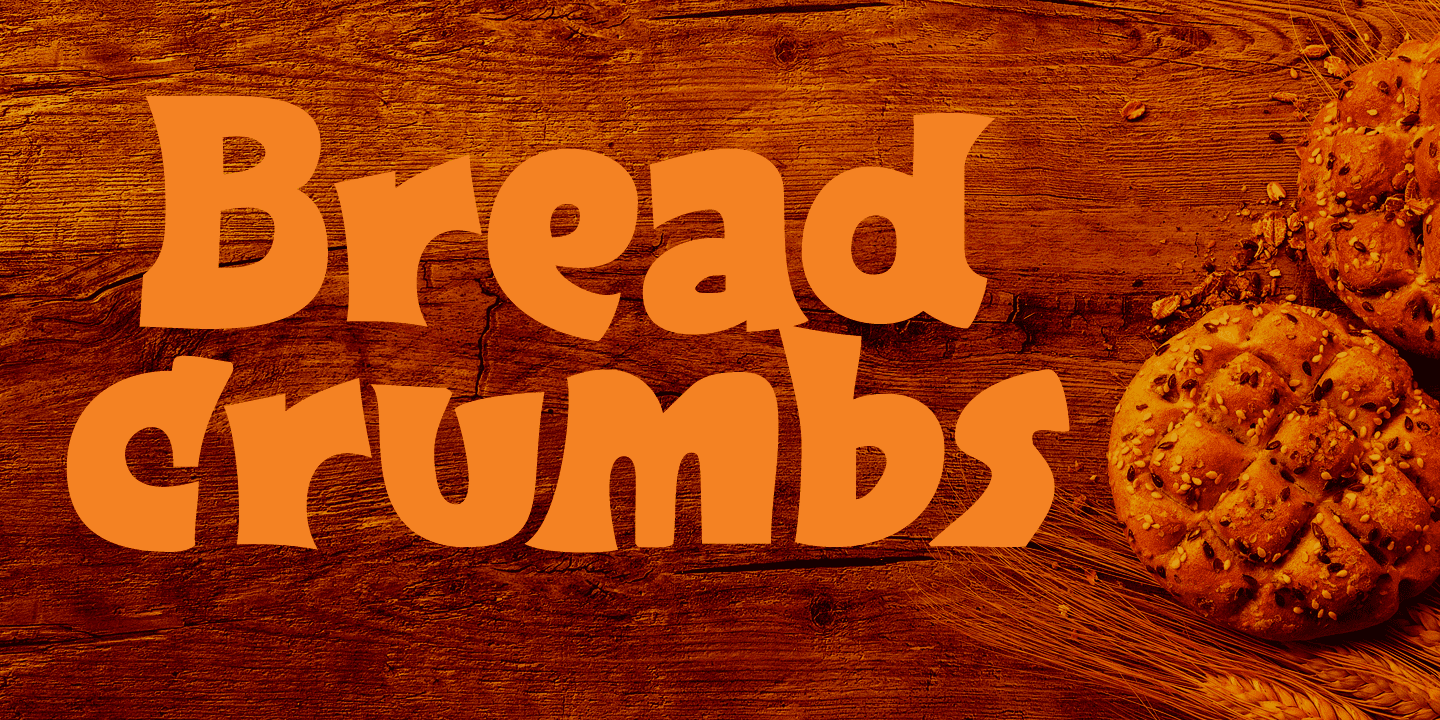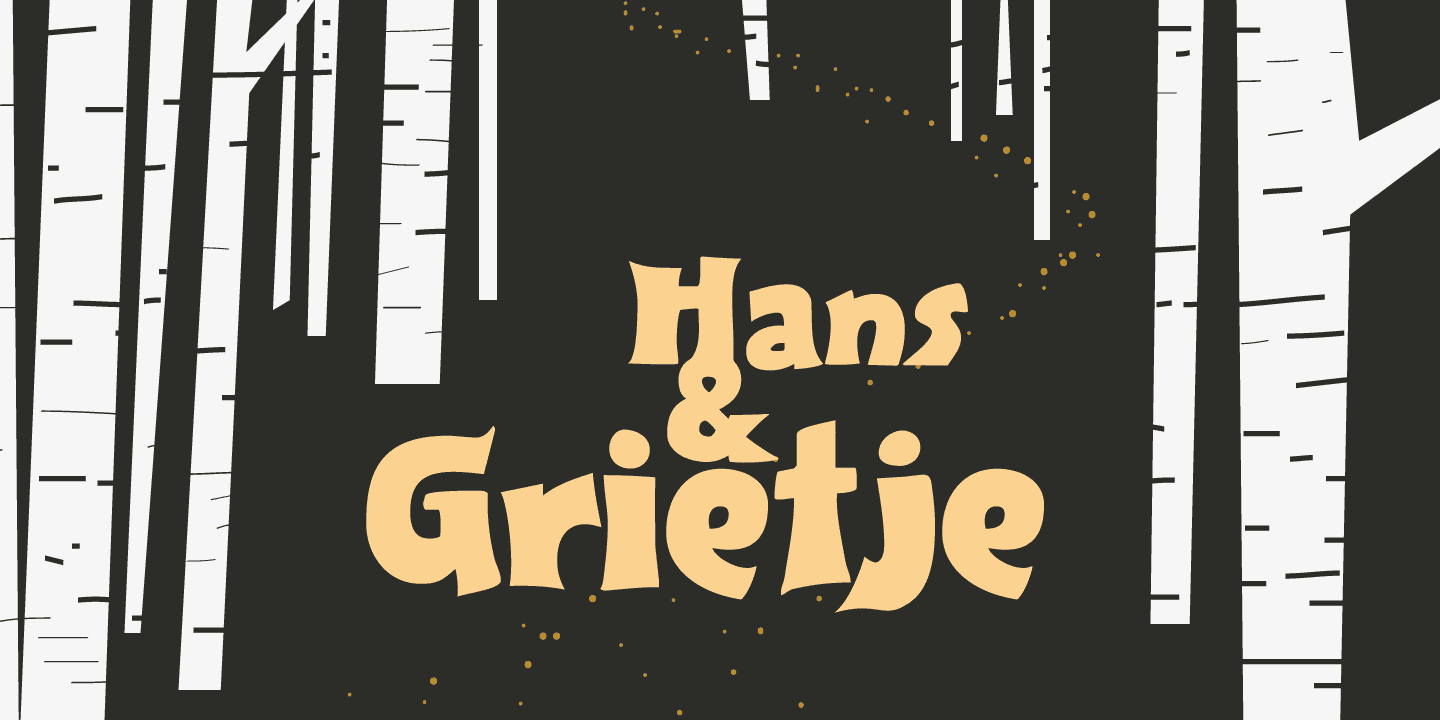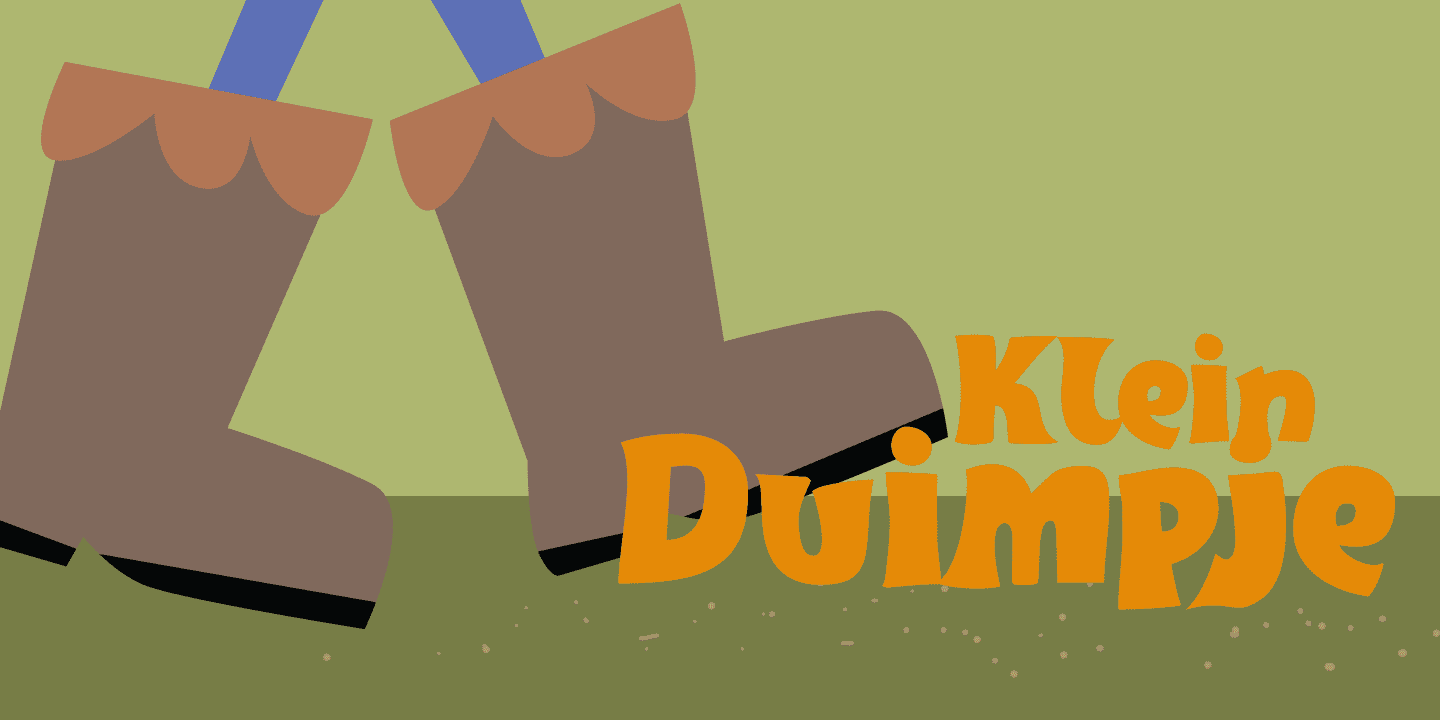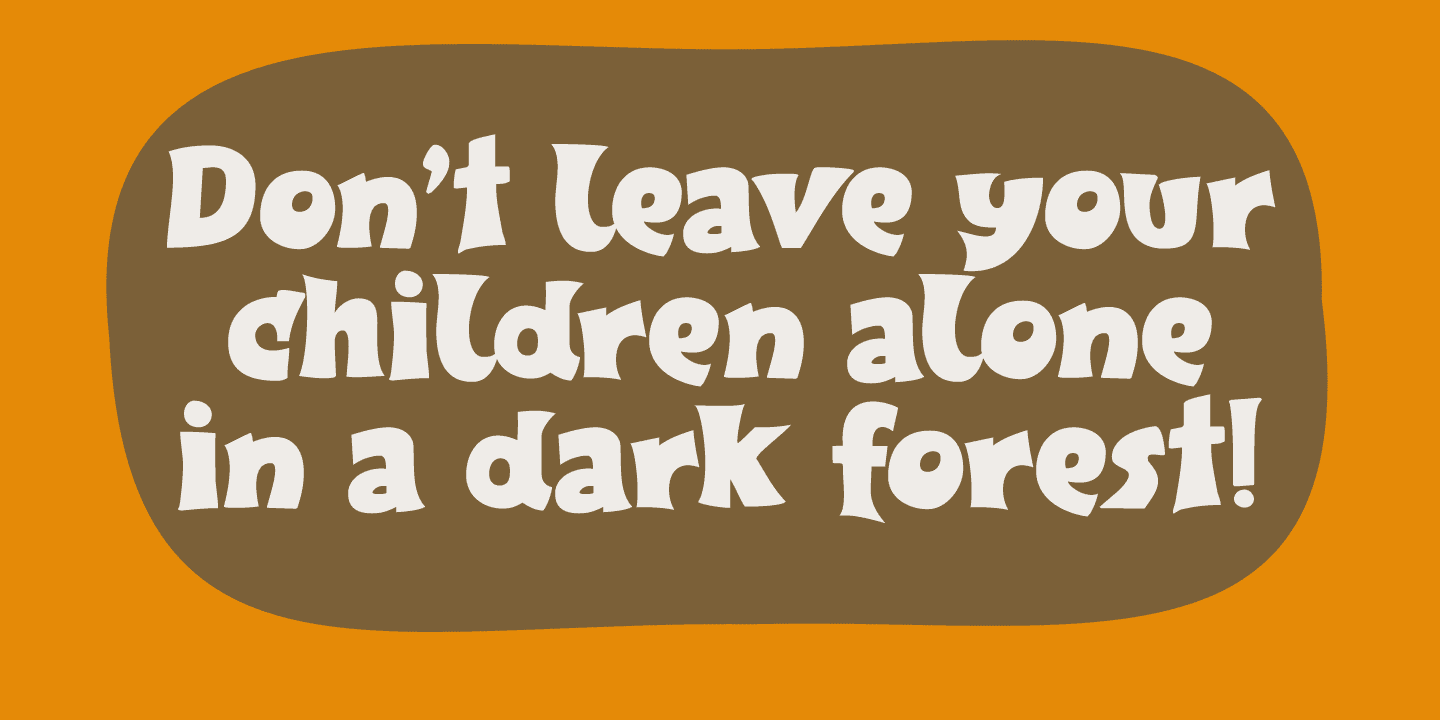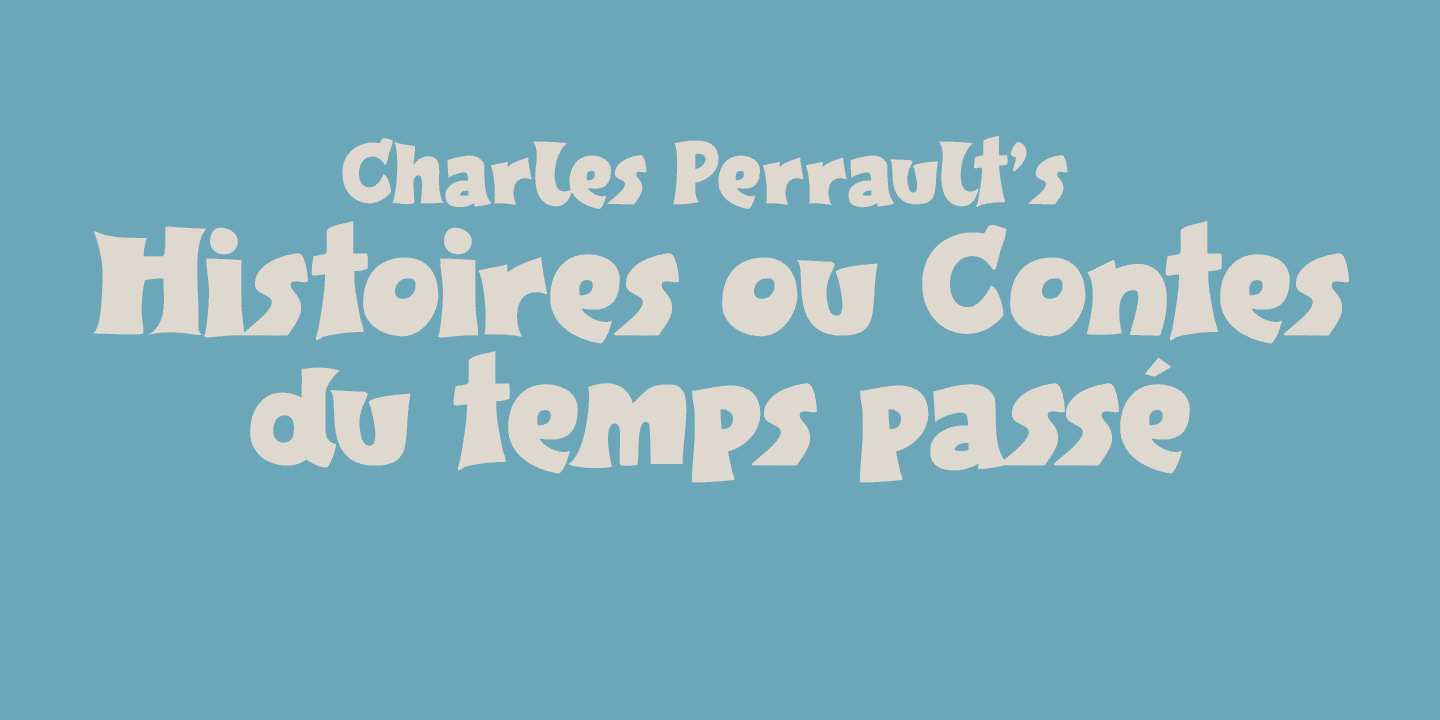
Breadcrumbs (2 fonts)
Breadcrumbs font is a happy, sloppy fairytale font, which you can use for your book covers, your party posters and maybe crumbly bread packaging. But that is entirely up to you.